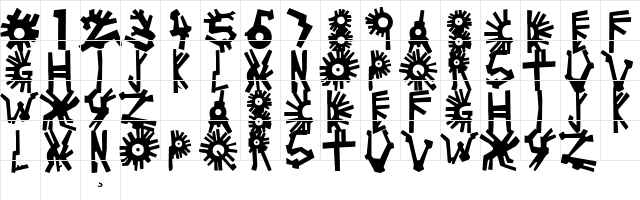
Pollo Pueblo - Black Regular
Complete Pollo Pueblo - Black Regular glyph index. Displaying only characters natively supported by Pollo Pueblo - Black Regular font.
Design Context for Pollo Pueblo - Black
Pollo Pueblo - Black is a composed and adaptable typeface that performs quietly and consistently across a wide range of design contexts.